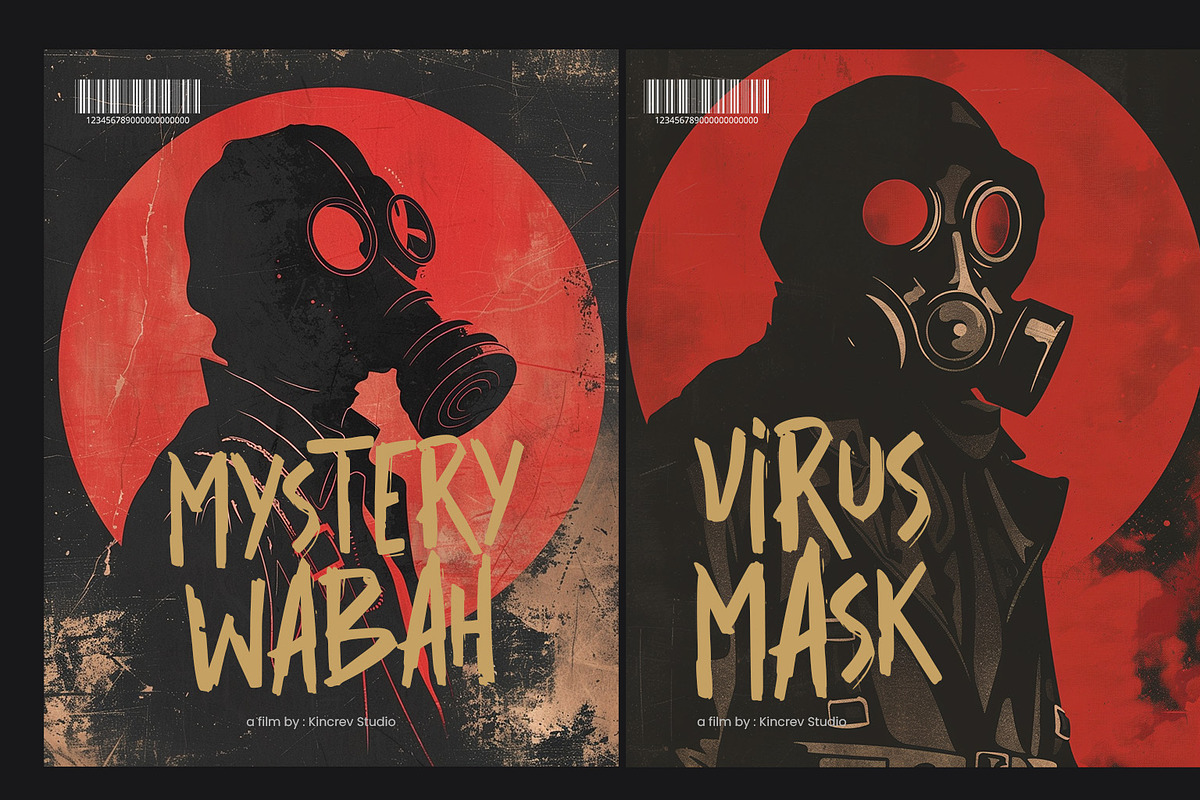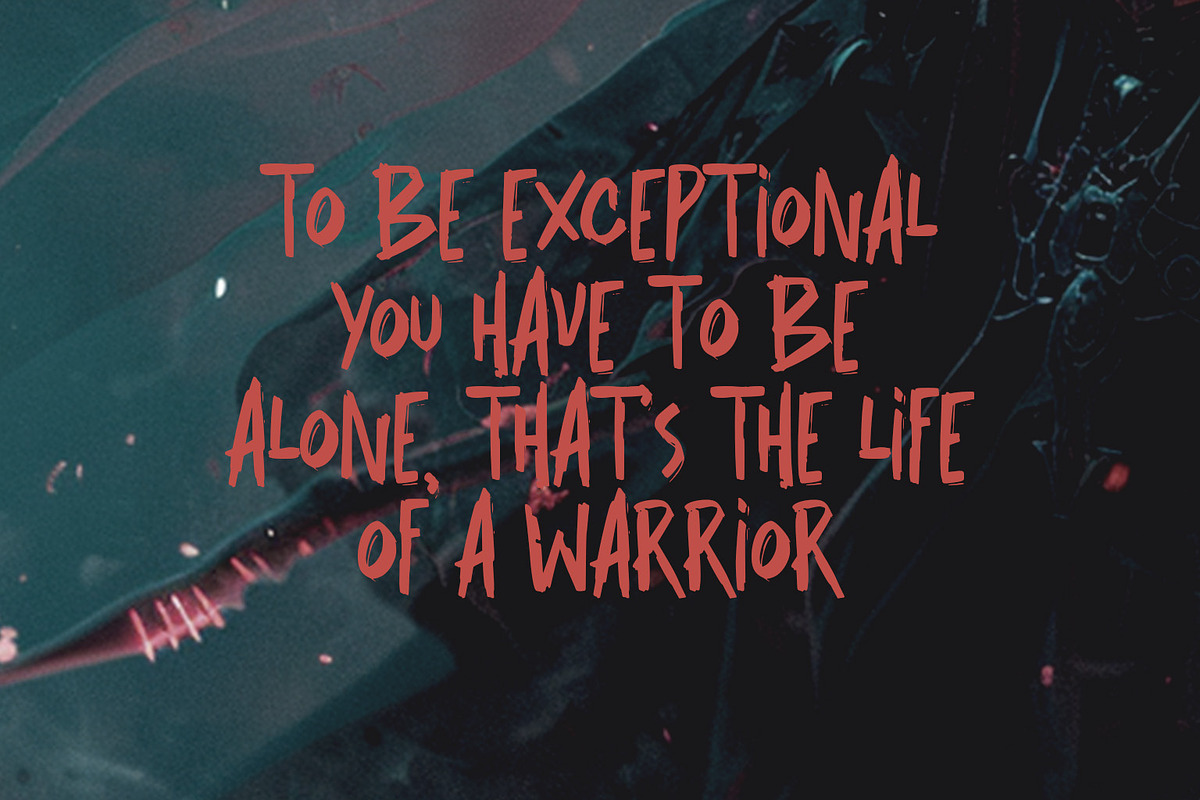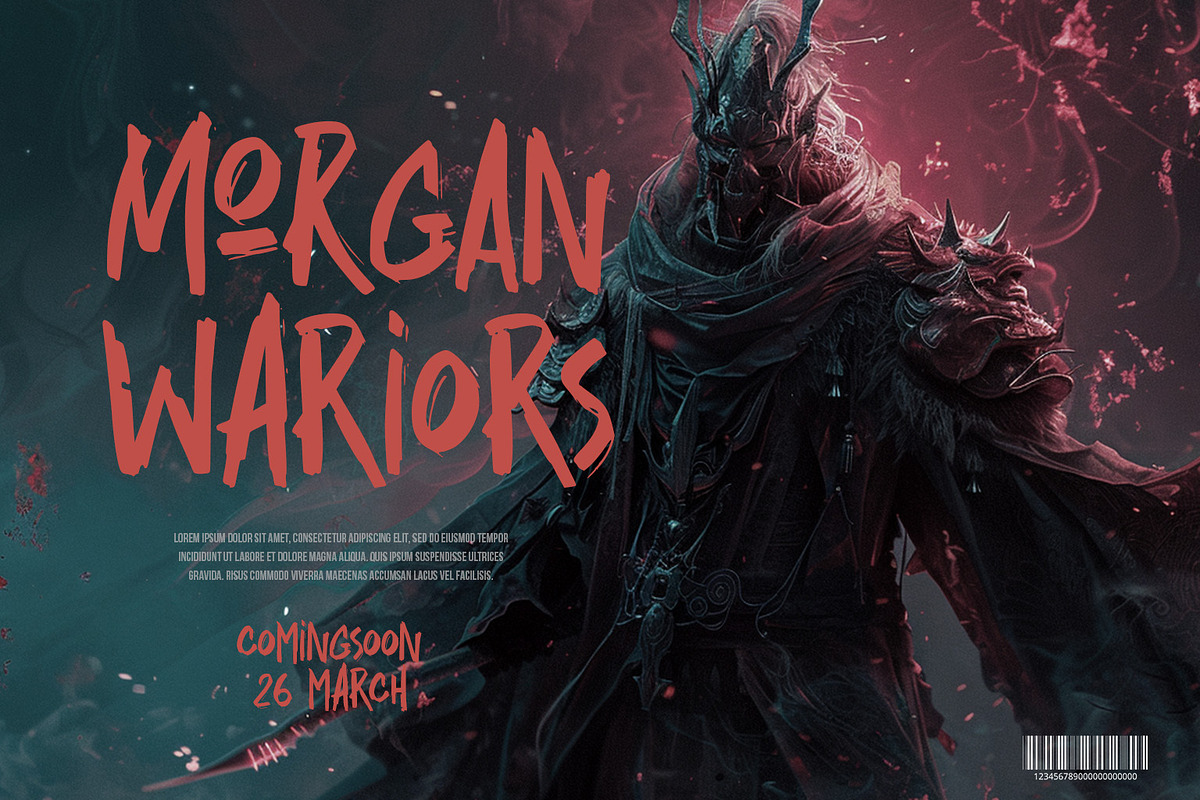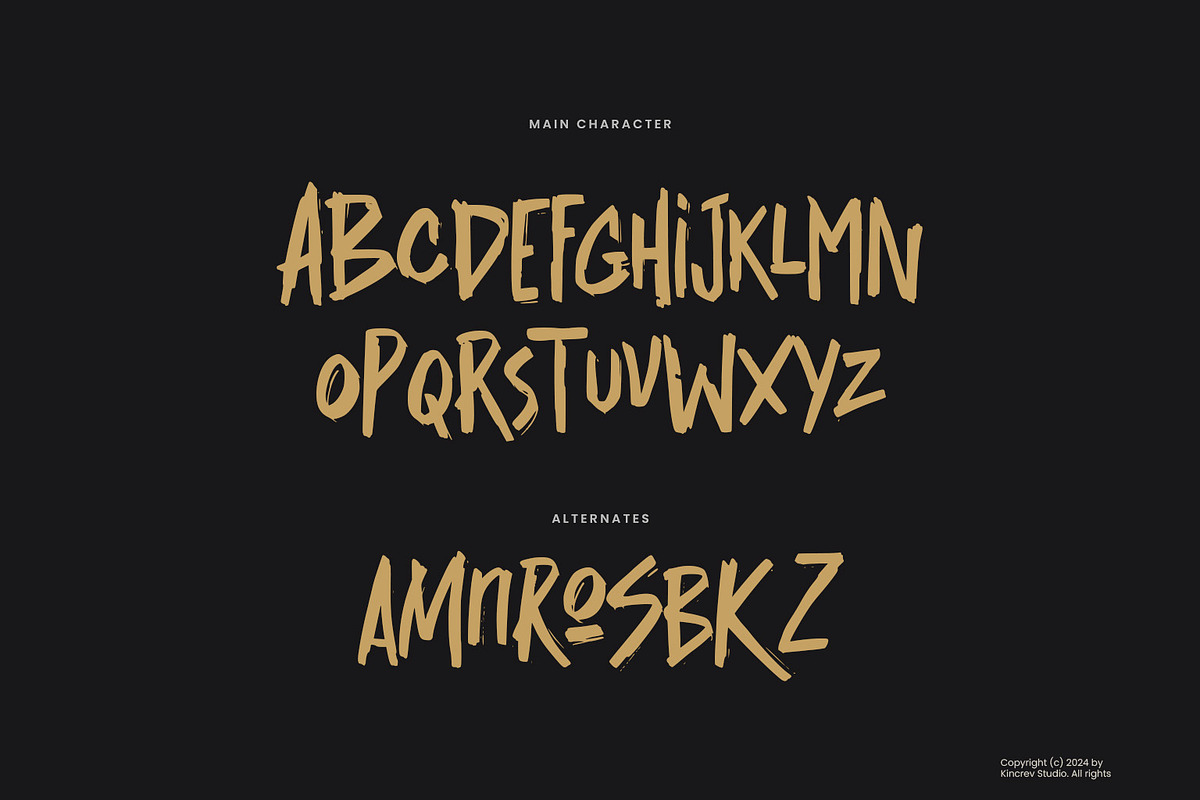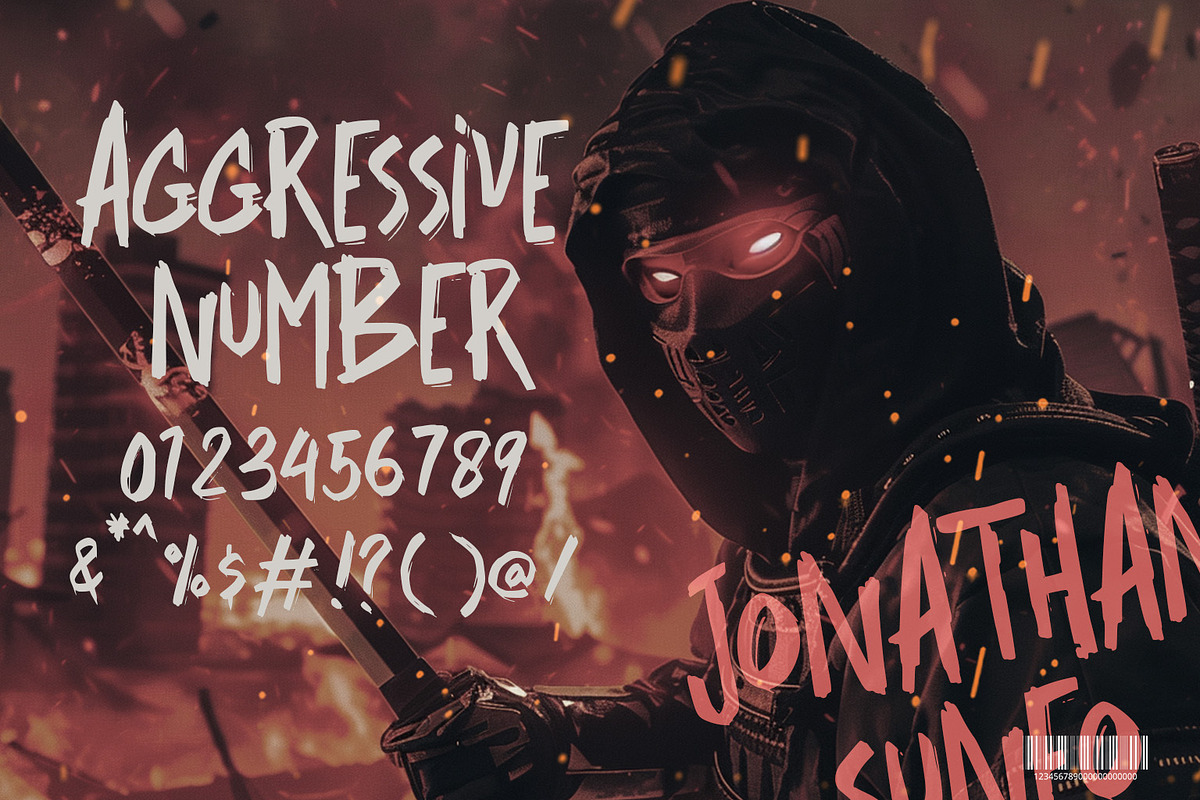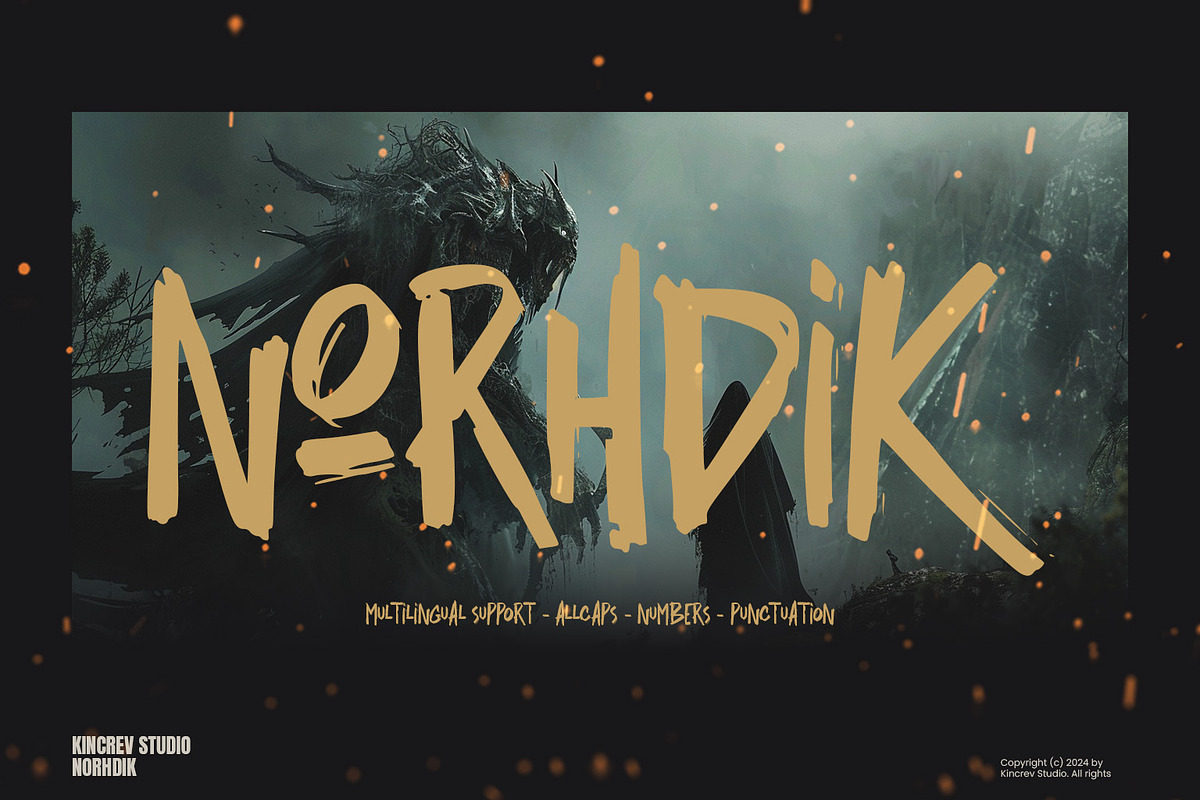
Norhdik
Norhdik, a brush font is font for you to get your designs with creative, modern and urban look. It is made in uppercase letters which are easy on the eyes and nice to look at, and easy to read. This font is designed to bring your brandings to life and add a touch of modernity, fun and style.
Norhdik fits for any design projects, such as posters, banners, logos, book covers, album covers, quotes, invitations, greeting cards, name cards, headings, printed products, merchandise, social media, etc. Find out more ways to use this font by taking a look at the font preview.